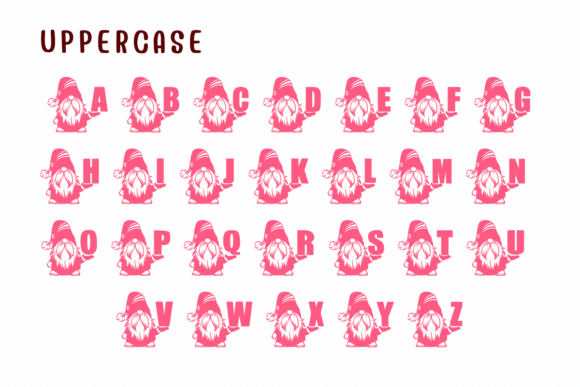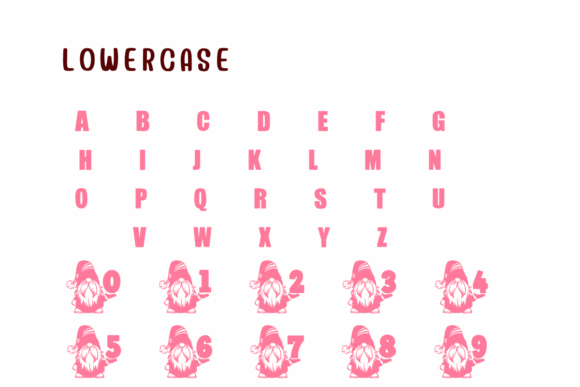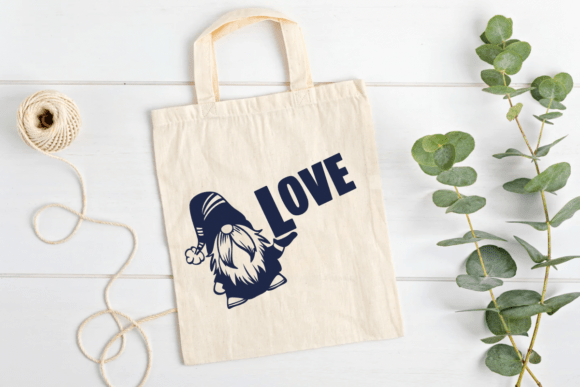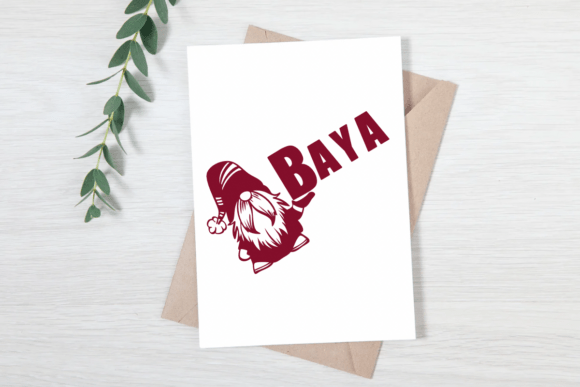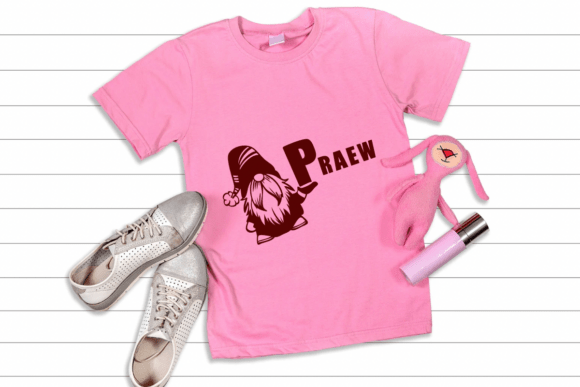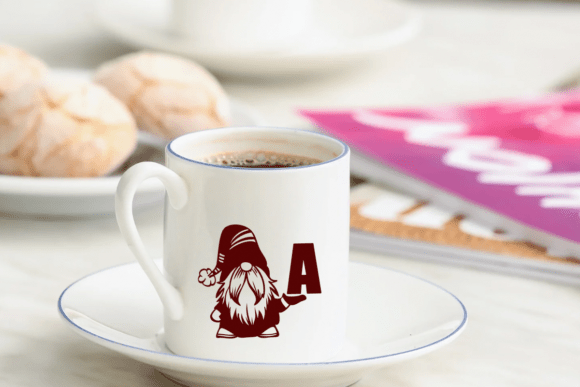
Introduction to Mother Gnome Font
Mother gnome is a Decorative font.
You can use it for taking notes, writing a diary, or making greeting cards However, you can still use it for other designs, such as banners, content, mugs, cards, shirts, stationery, social media posts, and more.
Key Features of Mother Gnome Font